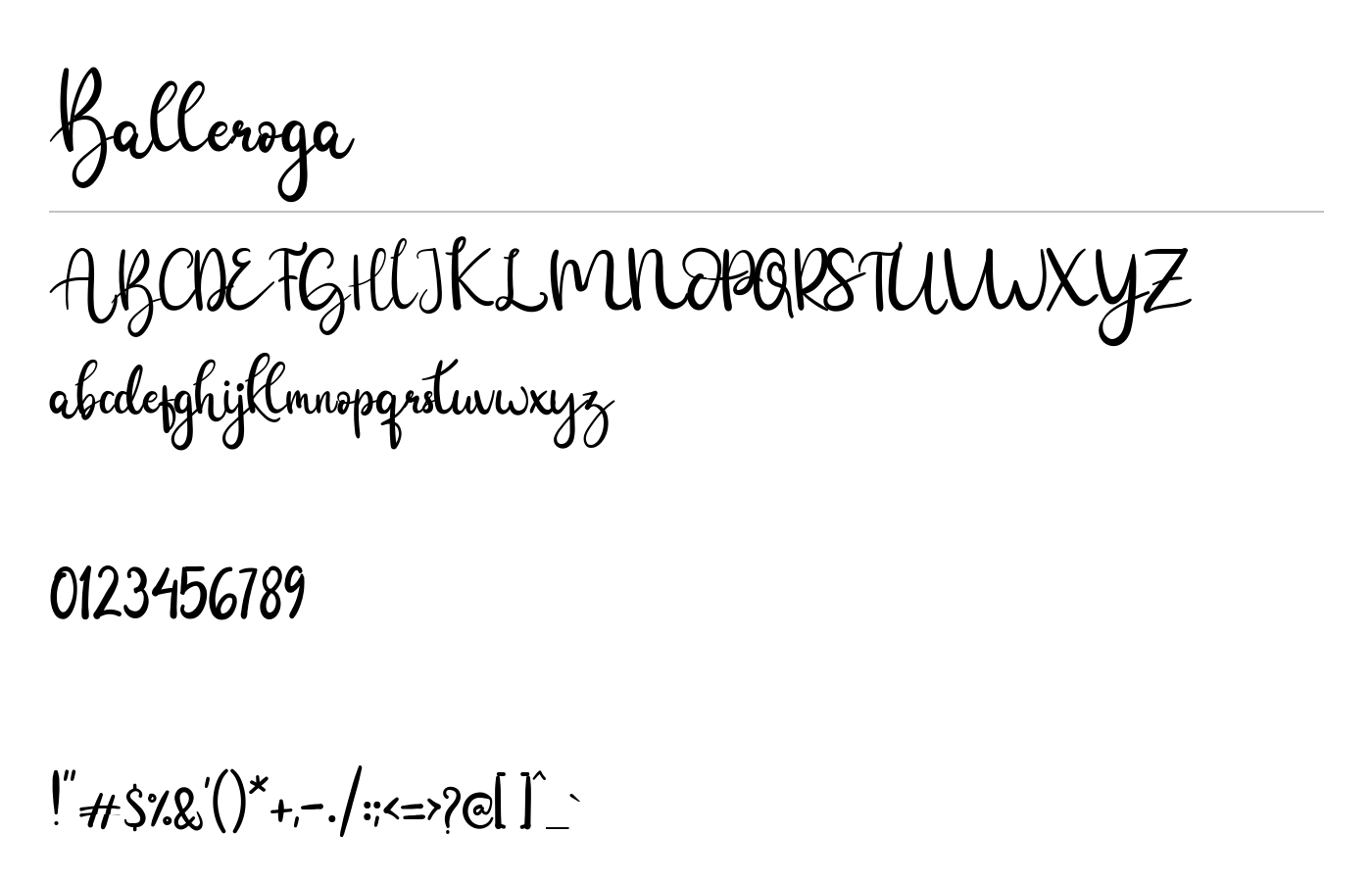
Balleroga is a lively and elegant script font with a casual yet refined feel, featuring smooth, flowing strokes and playful loops. Its tall, narrow letterforms and consistent weight give it a friendly and approachable personality, making it perfect for invitations, branding, and creative projects that seek a personal, handwritten touch. This font works well in headlines and logos where a stylish, informal elegance is desired.
Balleroga Font
About Balleroga Font
| Designer | Surya Iswandi |